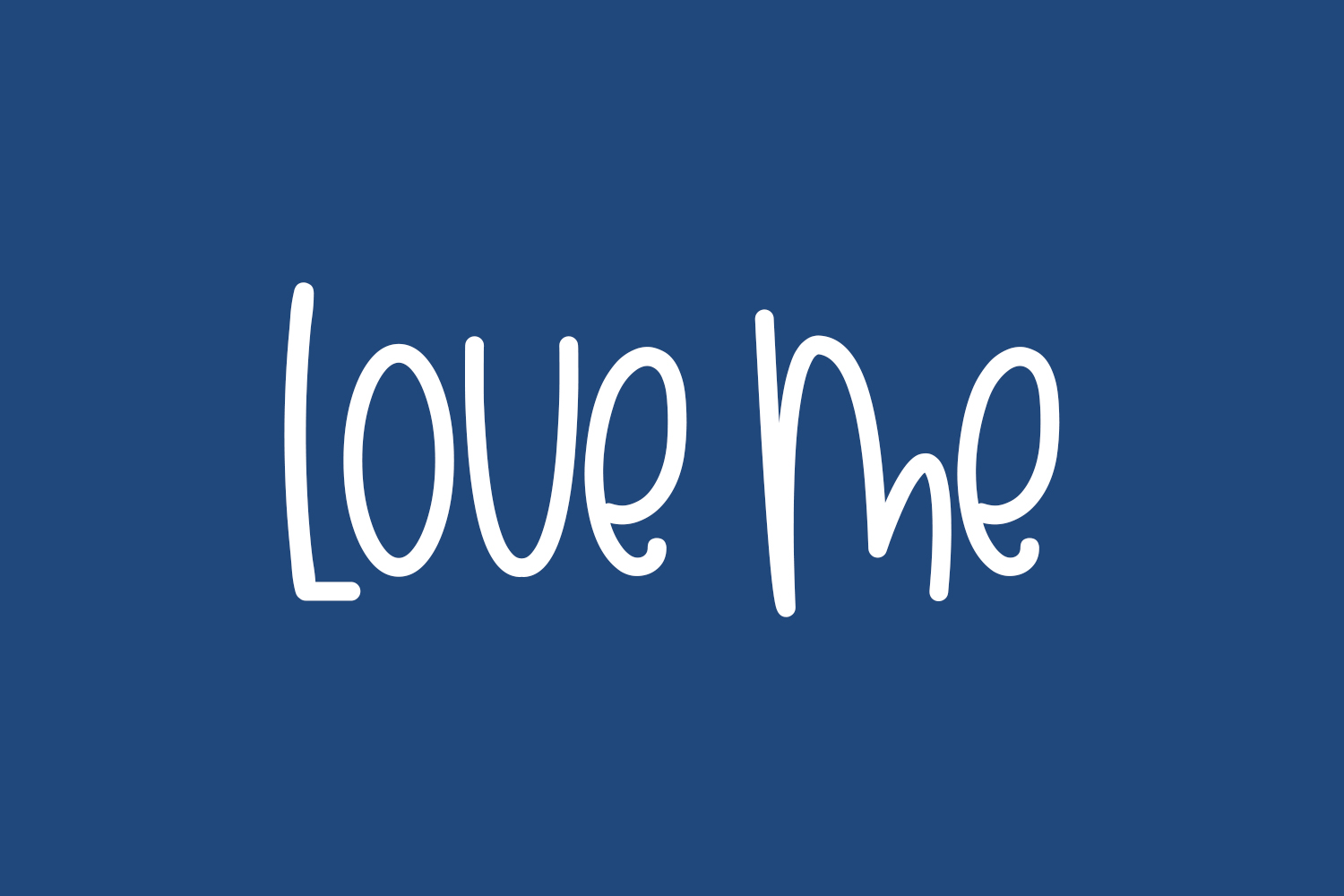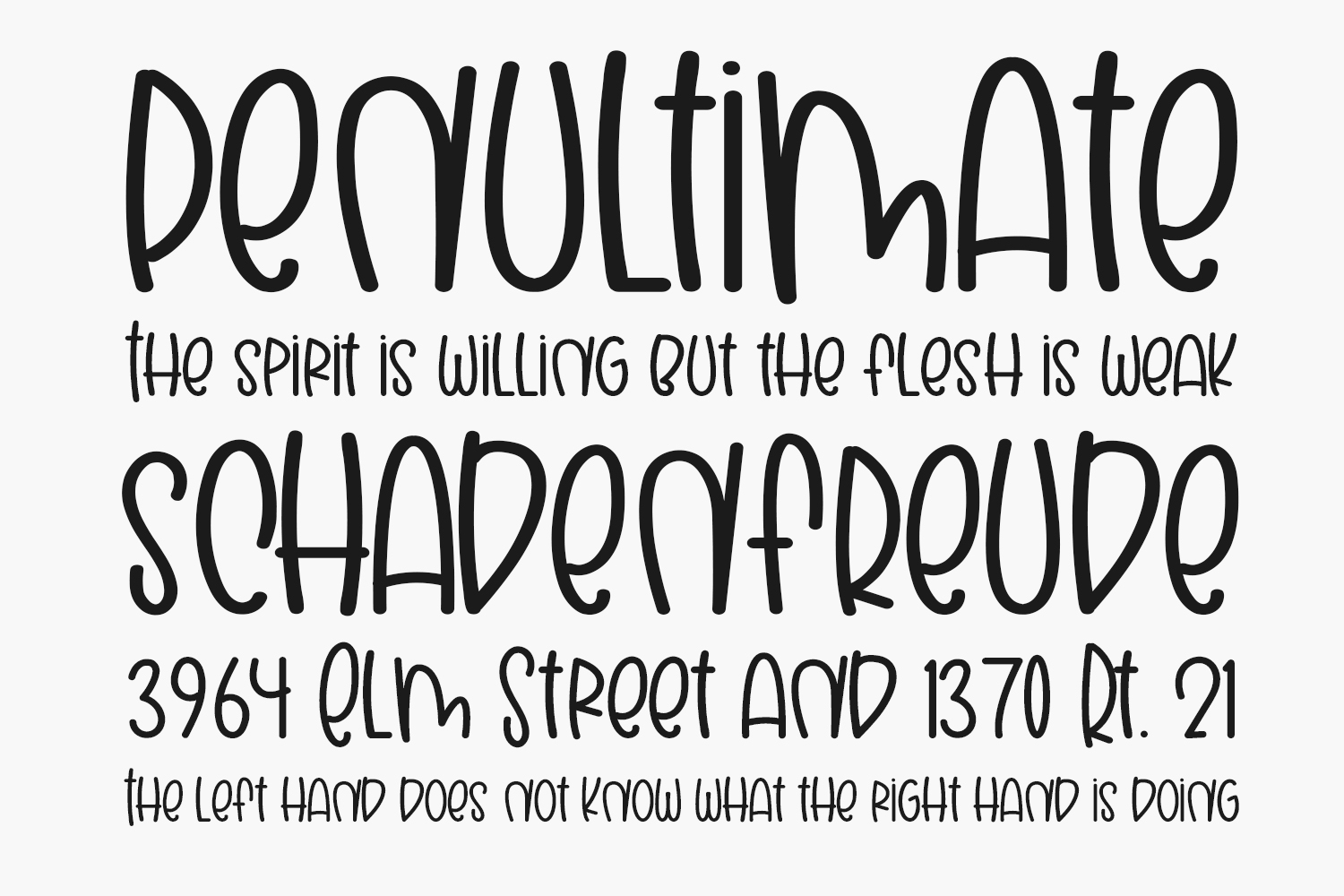
Love Me Free Font captivates with its enchanting handwritten style. This versatile font is suitable for a myriad of applications, from greeting cards to headlines, ensuring a touch of romance in your upcoming project. Ideal for product packaging, branding projects, magazines, social media, weddings, or simply conveying words atop any background, Love Me is the perfect choice. Elevate your designs with this charming typeface and infuse a romantic essence into every aspect of your creative endeavors. Love Me Free Font was designed by Andang Prasetyo and is free for personal use only. Please purchase the full version for commercial use.